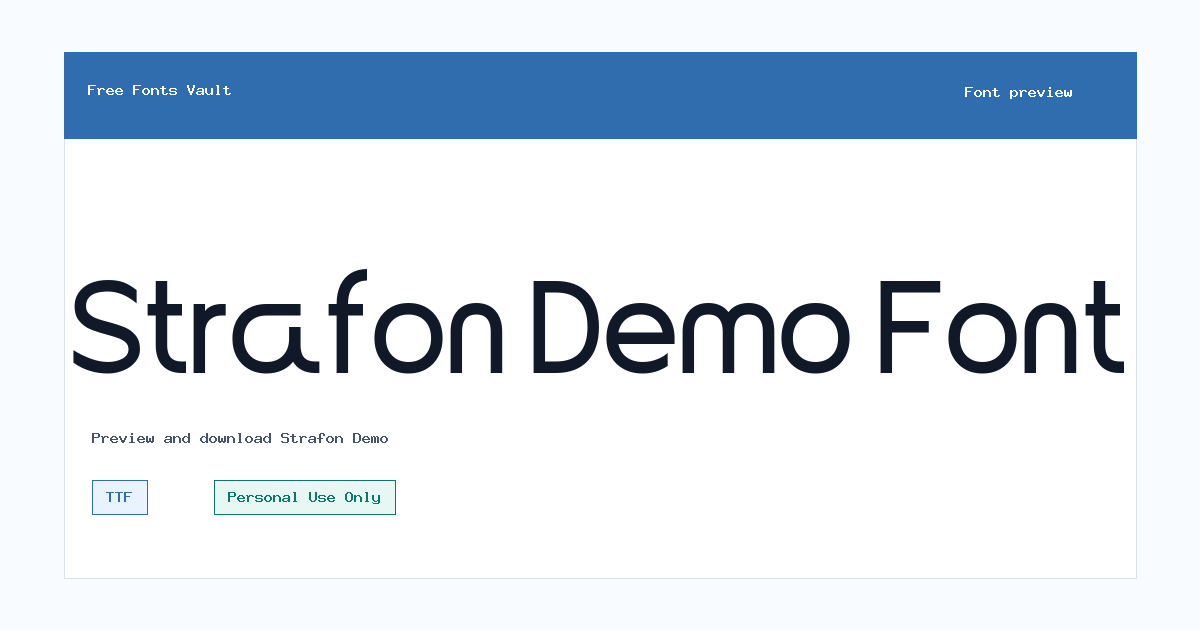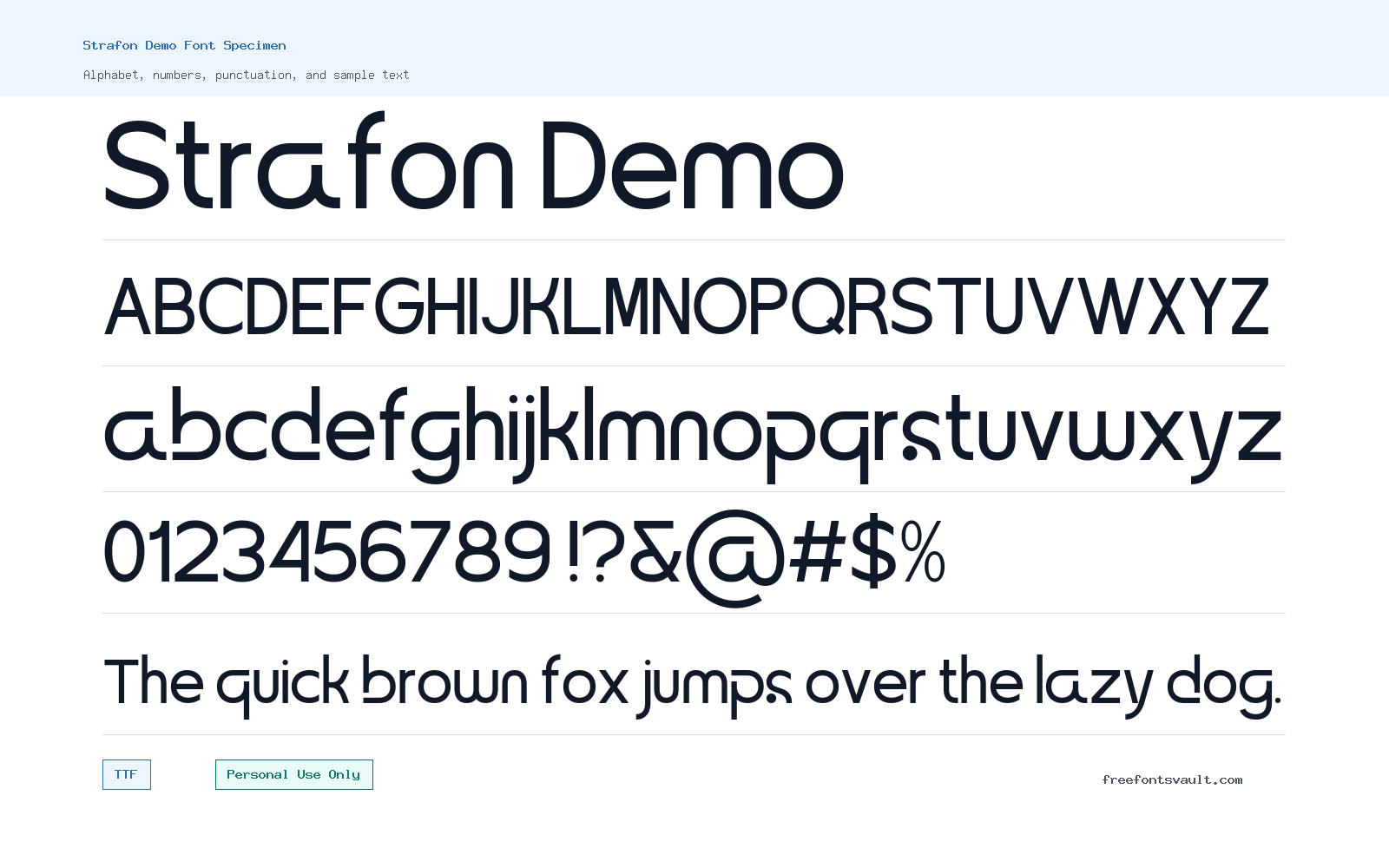
Strafon Demo
Strafon Demo Font
Strafon Demo is a personal-use display font intended for visitors who want to test bold, short-form typography before using it in a private design project.
Strafon Demo is best approached as a display font rather than a long-reading text face. The name and license information identify it as a display font, so it makes the most sense in places where a few words need to carry the visual style: titles, cover text, logo drafts, posters, social graphics, thumbnails, headers, or short branding mockups. Use the live preview with your own wording before downloading, because display fonts can change their feel quickly depending on the letters used. A name with many tall characters may look very different from a phrase with rounded letters, numbers, or punctuation.
For practical use, start by testing Strafon Demo at larger sizes. Try all-caps text, title case, and a short lowercase phrase if your project needs mixed-case wording. Check spacing between letters, especially in tight combinations such as AV, WA, TT, or letters beside numbers. If the font feels strong in a headline but heavy in a paragraph, pair it with a simpler sans serif or serif for body copy. Keep the supporting font quiet so the display style remains the focus. Strafon Demo is also offered in both TTF and OTF formats, which gives you two common installation choices for desktop design apps.
• Display-oriented regular style for short, eye-catching text
• Posters, cover titles, social media graphics, and thumbnail text
• Personal branding mockups, logo drafts, headings, and short decorative phrases
What kind of projects suit Strafon Demo?
It is most useful for short display text such as titles, posters, social graphics, logo concepts, and personal design mockups.
Can I use Strafon Demo for body text?
It is better for headings and short phrases. For paragraphs, pair it with a simpler, more readable font.